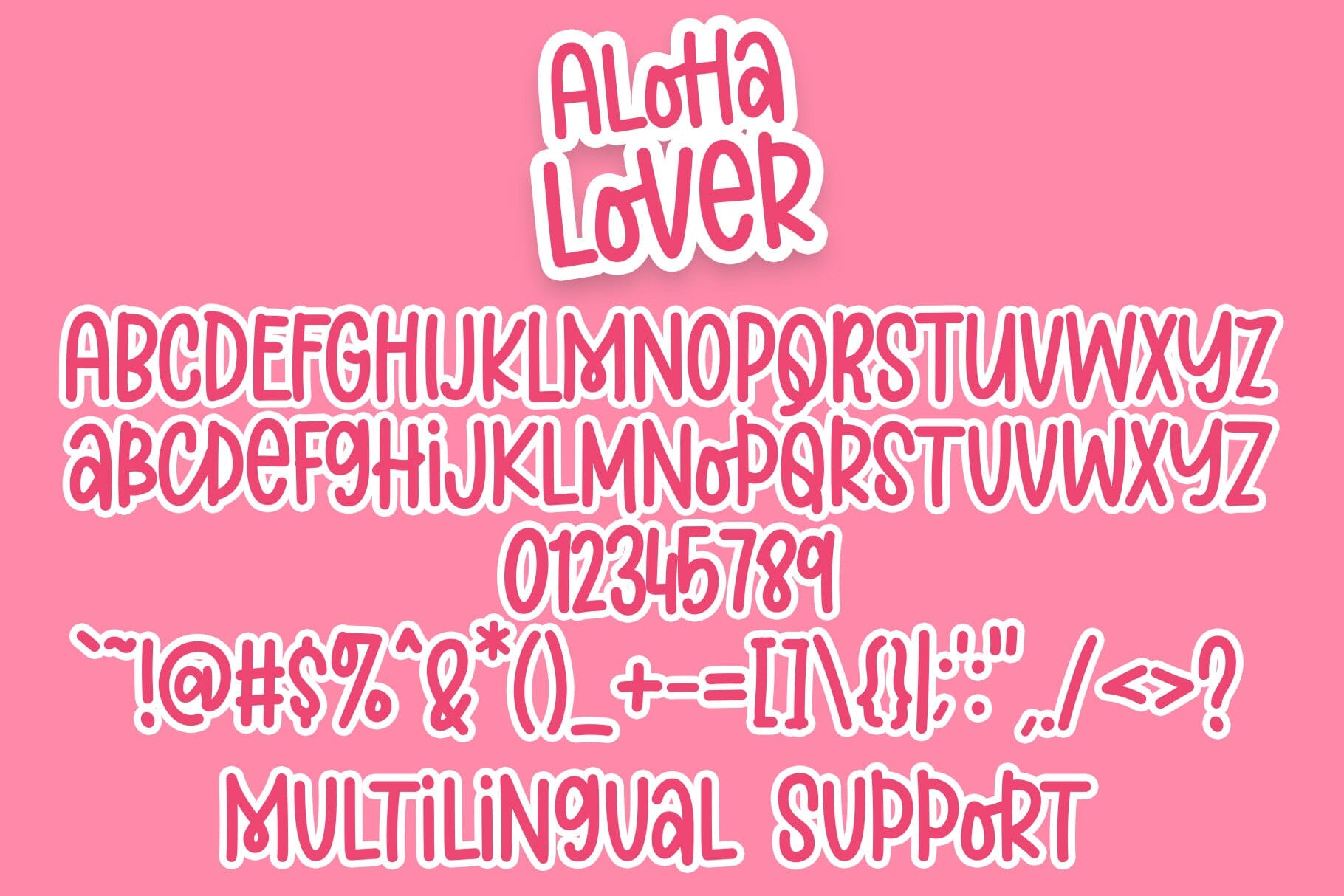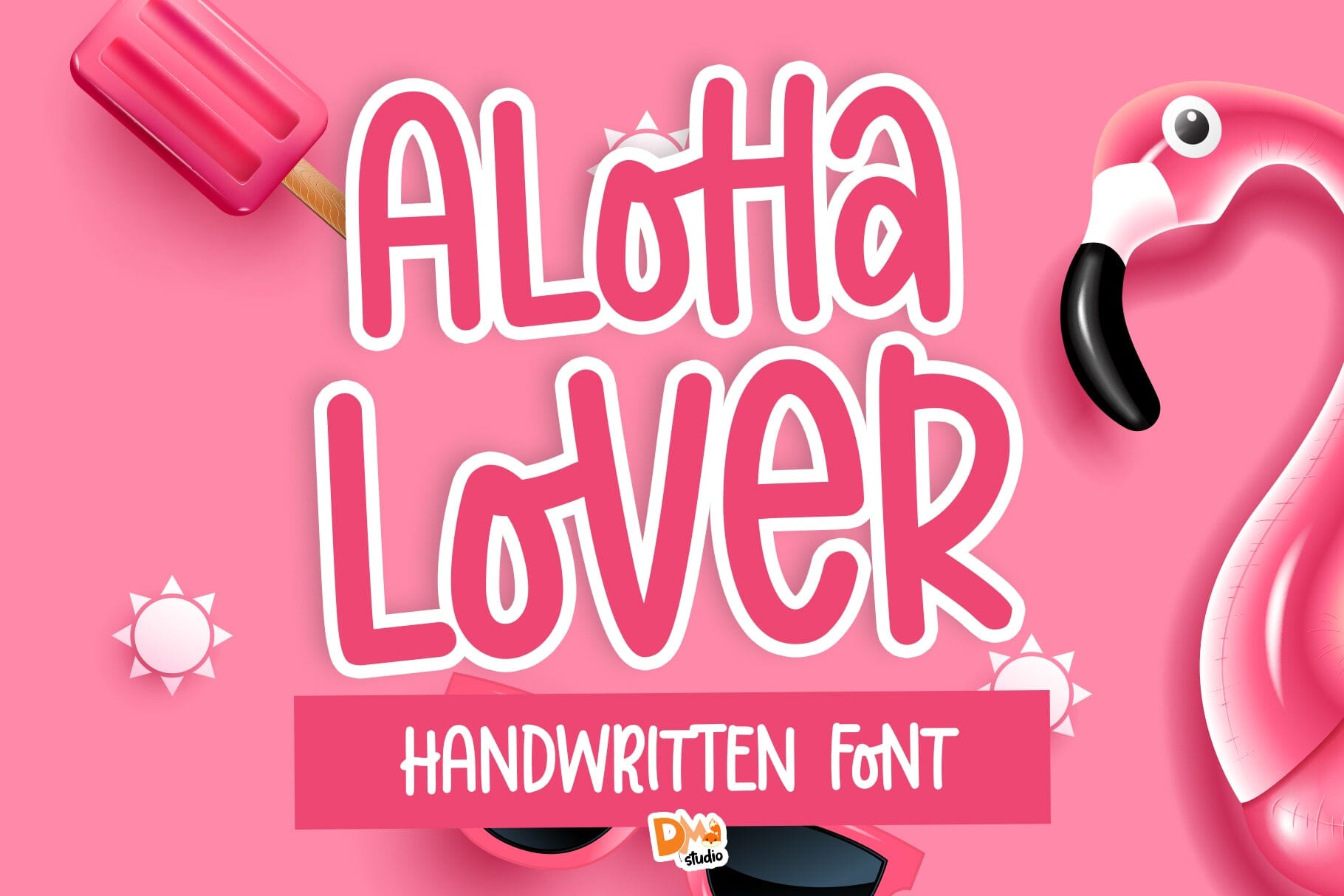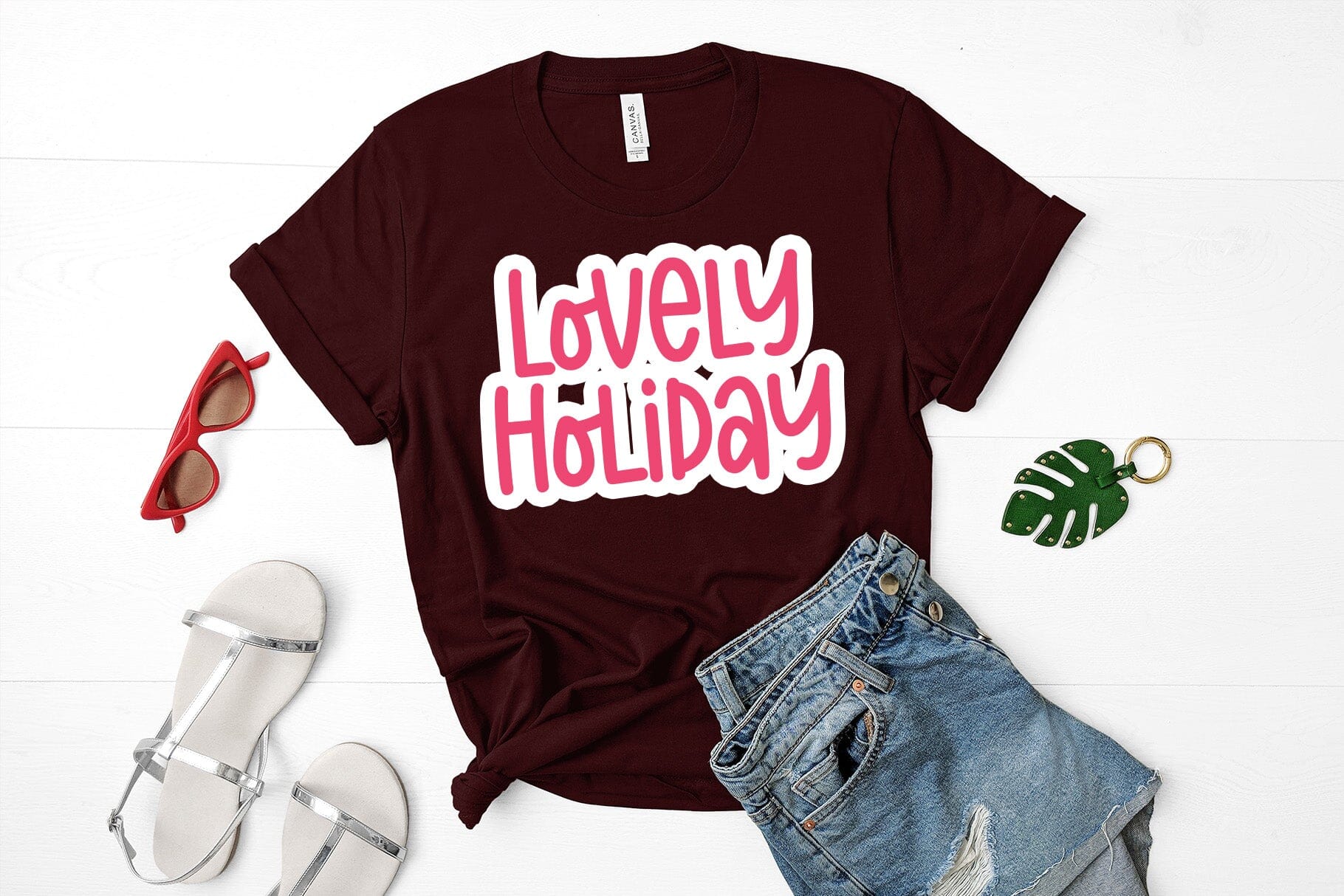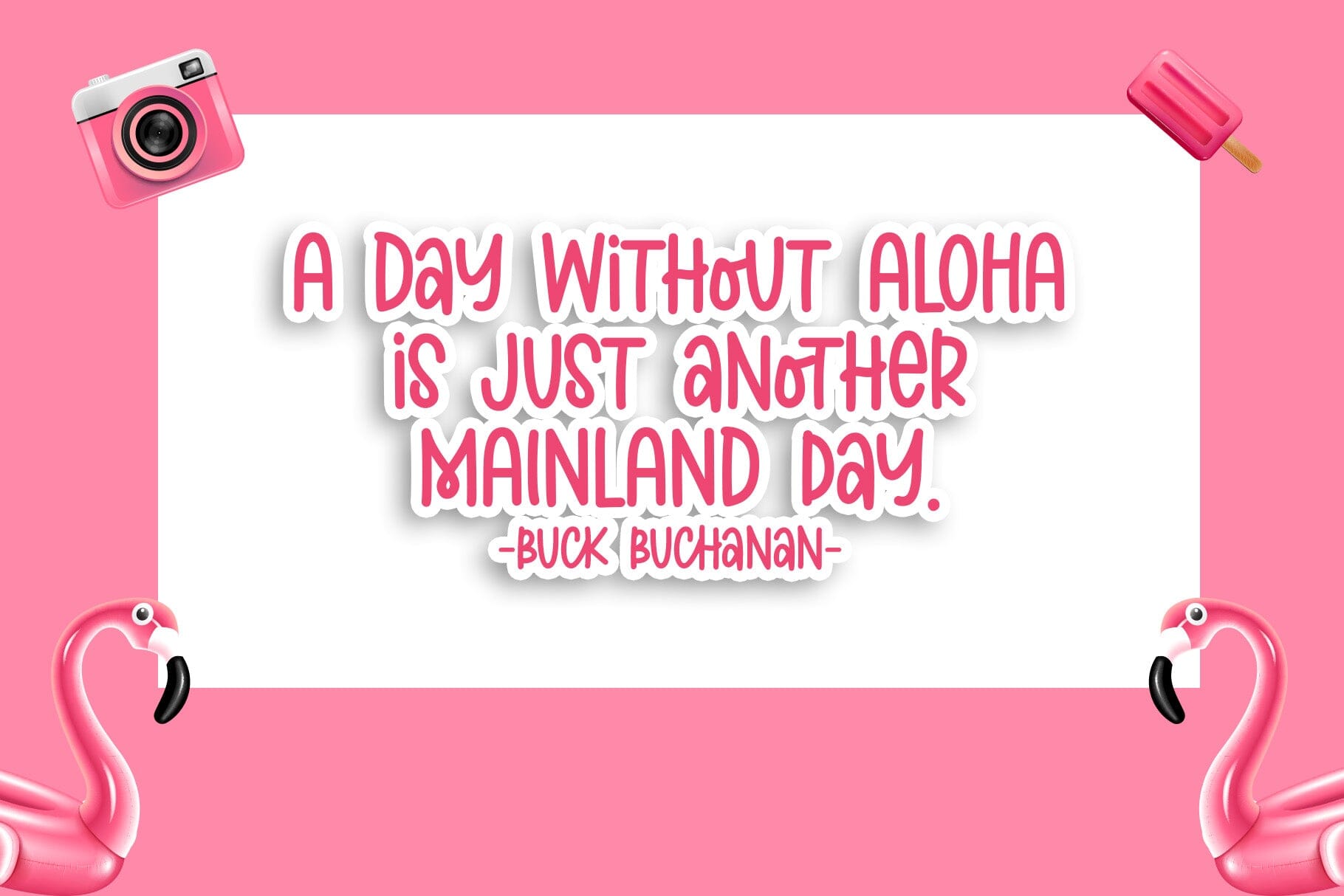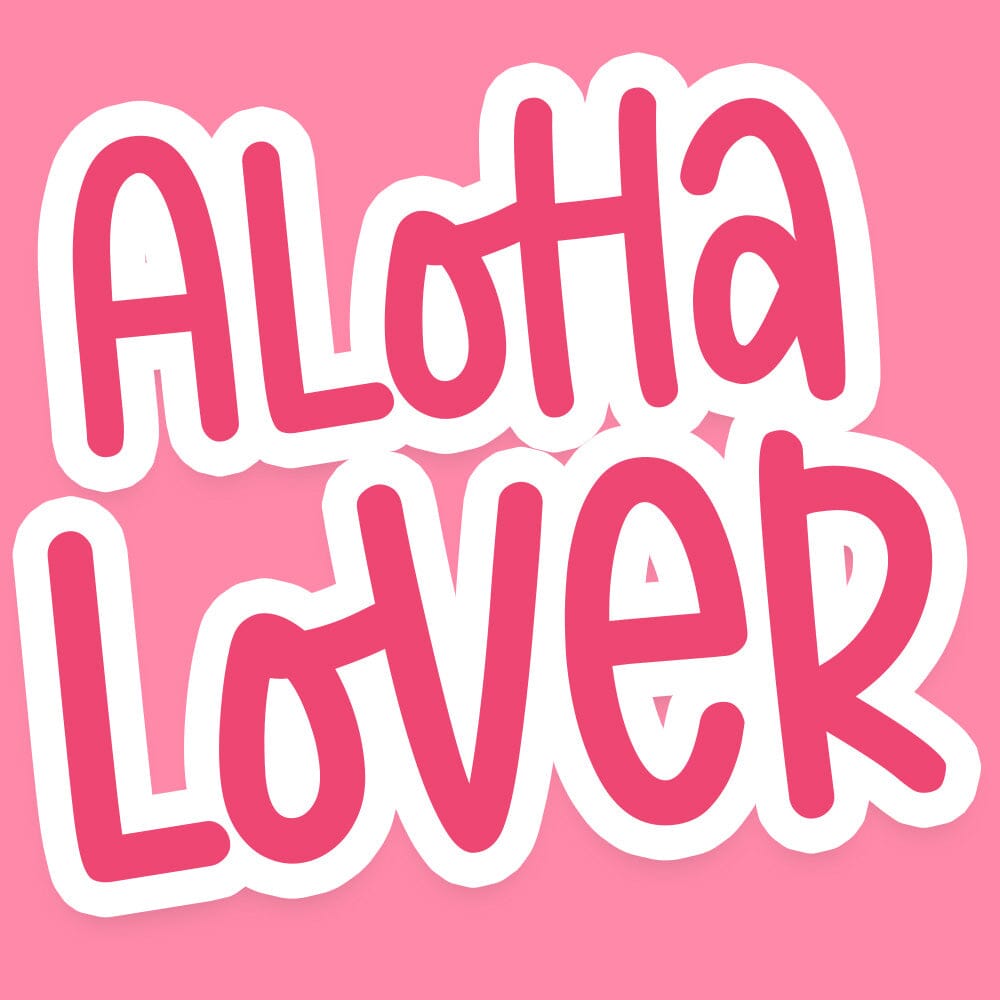
Aloha Lover Font: Tropical Typography for Your Designs
Transform your projects with the vibrant and carefree spirit of Aloha Lover Font. Bring the relaxed atmosphere of tropical getaways to your creative work.
Discover Aloha Lover Font’s Captivating Features
The Aloha Lover Font is a delightful and versatile typeface that radiates the warmth and laid-back vibes of the tropics. This font perfectly blends casual elegance with exotic charm, making it ideal for a wide range of design projects, from invitations and branding to social media graphics and more.
Tropical Elegance
Aloha Lover Font embodies the spirit of the islands with its breezy and elegant design. Inspired by the relaxed atmosphere of tropical paradises, it’s perfect for projects that require a touch of exotic charm. The flowing lines and thoughtful curves of each character evoke the gentle ocean breeze and swaying palm trees, transporting viewers to a serene beachside setting.
Perfect For Various Creative Applications
Invitations and Cards
Create stunning invitations and cards for beach weddings, summer parties, luaus, tropical-themed birthdays, or any event that calls for a touch of tropical flair. The font’s distinctive character makes your invitations memorable and sets the mood for your special occasions.
Infuse your branding with a relaxed and stylish aesthetic. Aloha Lover Font is perfect for logos, packaging, and promotional materials that need to convey a laid-back but sophisticated vibe. Ideal for beach resorts, tropical restaurants, surf shops, vacation services, and wellness brands seeking to evoke a sense of paradise.
Social Media Graphics
Elevate your social media presence with eye-catching posts and stories that capture the essence of a tropical escape. Make your content stand out with this distinctive typeface. The font’s unique character draws attention and increases engagement on platforms like Instagram, Facebook, and Pinterest.
Apparel and Merchandise
Design trendy apparel and merchandise with the Aloha Lover Font, bringing a sense of casual sophistication to your products. From t-shirts and tote bags to mugs and posters, this font adds instant tropical appeal to any merchandise collection.
Transform your designs into a tropical paradise with the Aloha Lover Font. Embrace the casual elegance and exotic charm of this typeface to create projects that transport your audience to sun-soaked beaches and the laid-back spirit of the islands. Whether you’re designing for summer promotions, vacation themes, or simply want to add a touch of tropical warmth to your projects year-round, Aloha Lover Font delivers the perfect blend of readability and distinctive character.